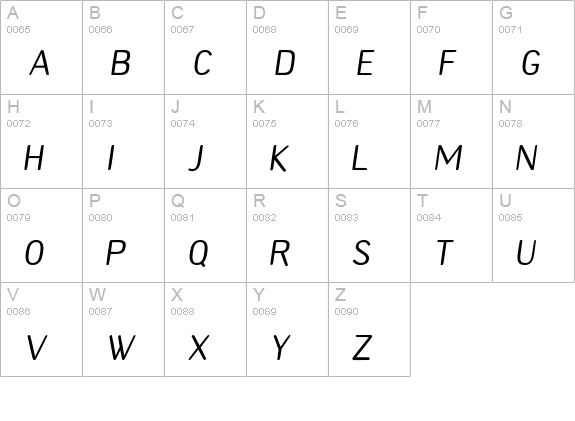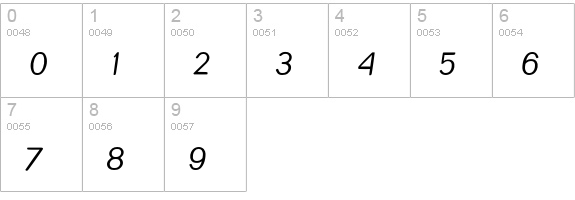
Felthgothic-Italic is a distinctive, italic variant in the Felthgothic typeface family \xE2\x80\x94 well suited to design and typography projects.
Felthgothic-Italic is a stunning and elegant typeface that exudes a sense of sophistication and creativity. Its intricate details and stylish curves make it perfect for adding a touch of class to any design project. The slanted italic style of Felthgothic-Italic adds a sense of movement and flair, making it ideal for titles, headlines, and other display purposes. What sets Felthgothic-Italic apart is not only its beauty but also its versatility. Whether used in print or digital media, this font is sure to make a bold statement and leave a lasting impression. Its unique design is perfect for projects that require a modern yet classic touch. Best of all, Felthgothic-Italic is available for free download at FontsMarket.com. This means you can easily access and use this exquisite font in your projects without any hassle. So why wait? Elevate your designs with the timeless beauty of Felthgothic-Italic today!